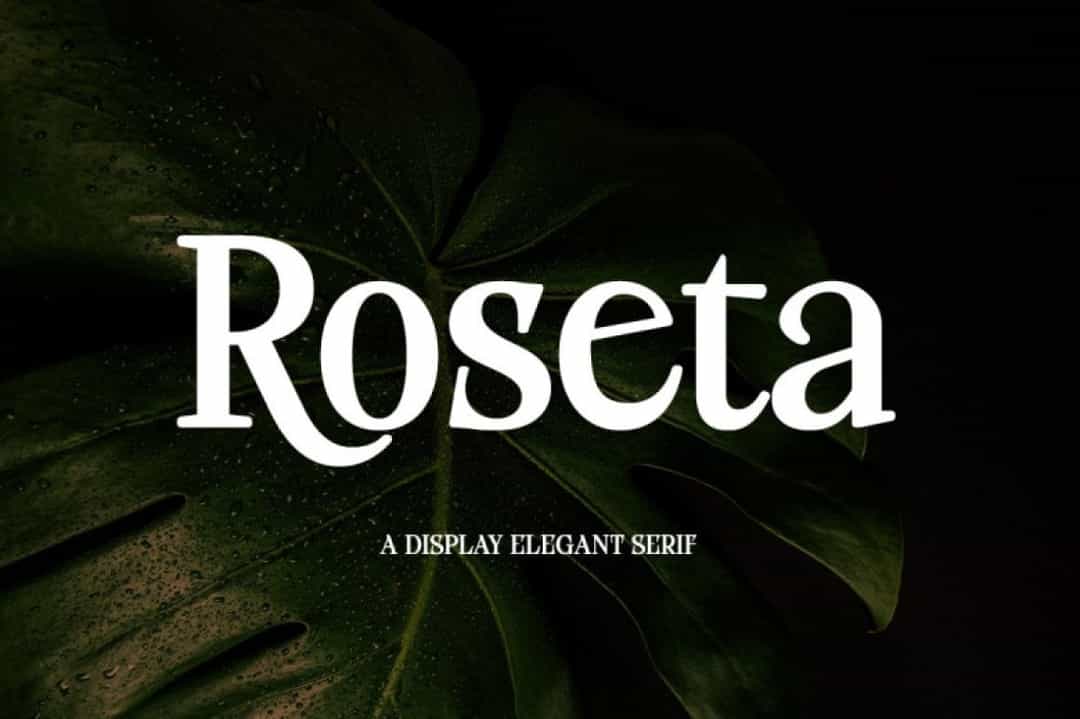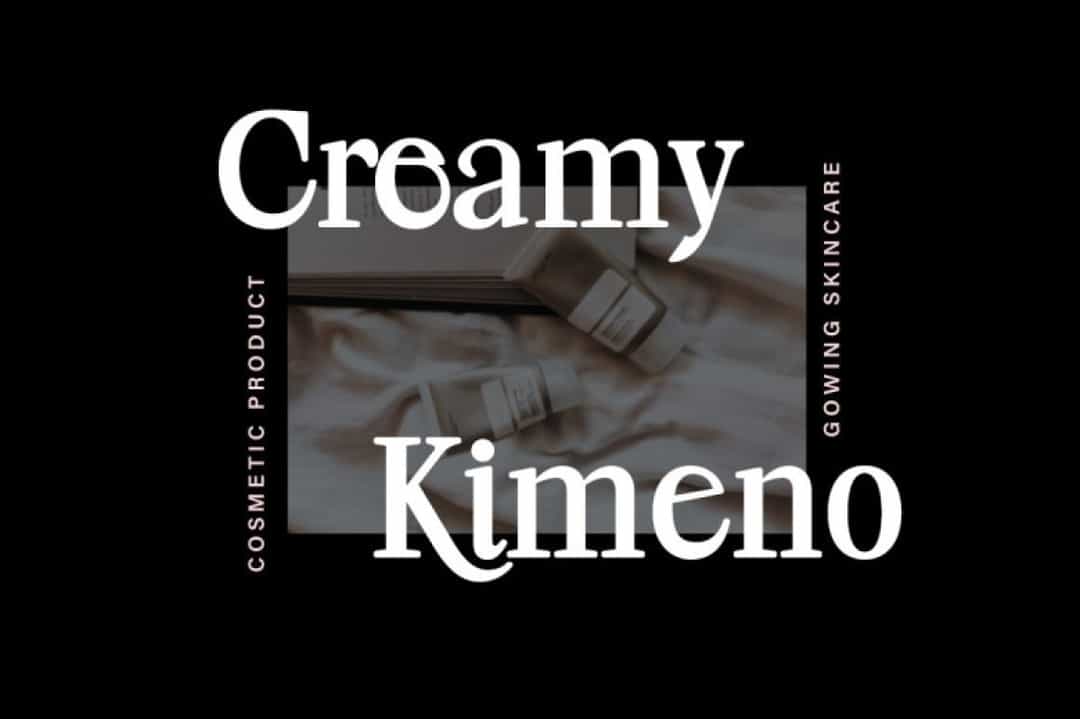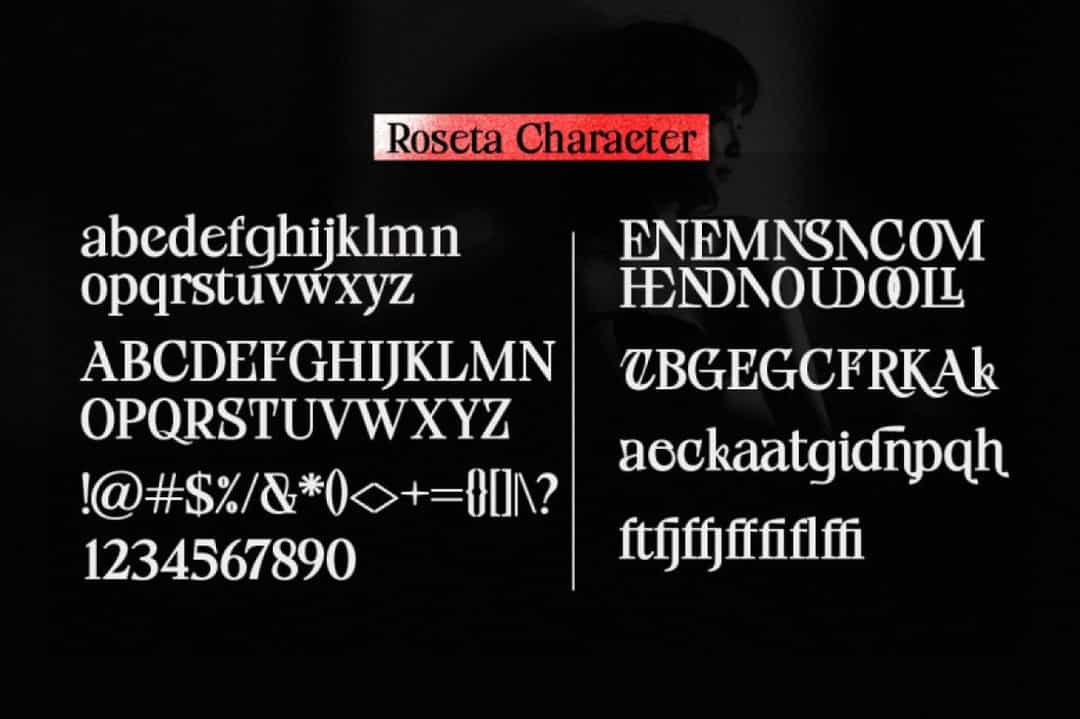
Roseta is an exquisite display serif font with a distinct style and perfect shape, inspired by stunning serif displays. It has thick lines with balanced spacing designed for elegant elegance. In my example I show how this font could be utilized – great for branding logotypes bridal invitations romantic card designs alcohol labels packaging name spelling and more!